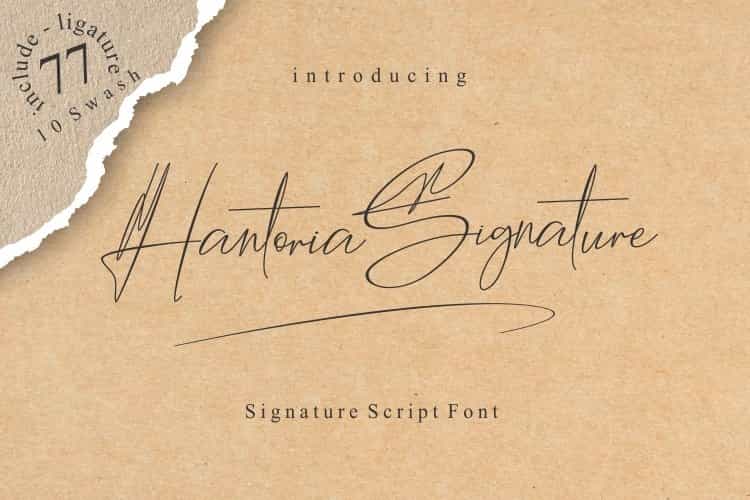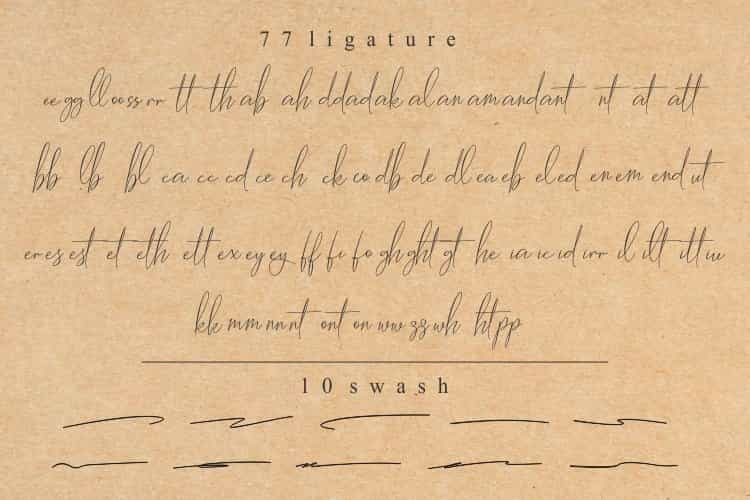
Hantoria Signature is a font that can be classified under the handwritten type of fonts which adds refinement to any project you are working on. Ideal for logos and branding, invitation cards, advertisements, social media posts, packaging designs for products, labels, photographs and photography watermarking, events watermarking and many more ways, Hantoria Signature can be felt.